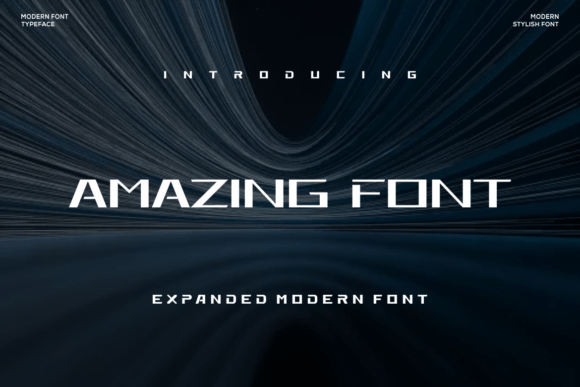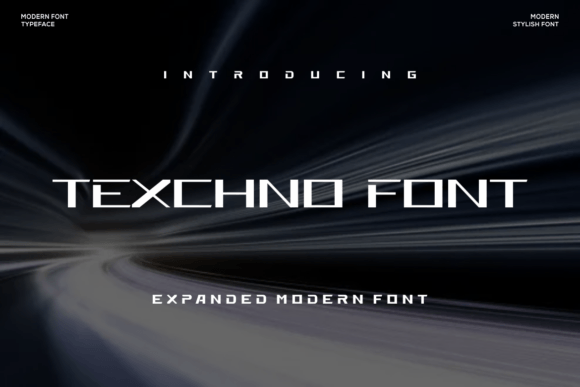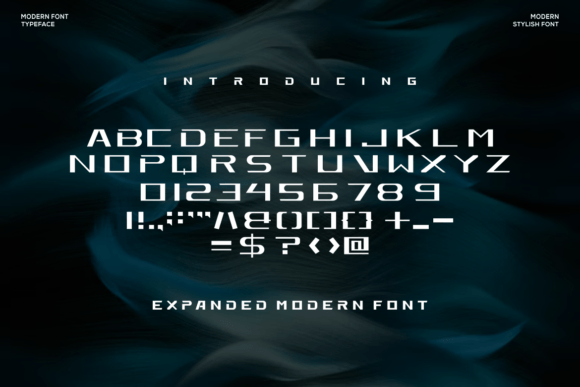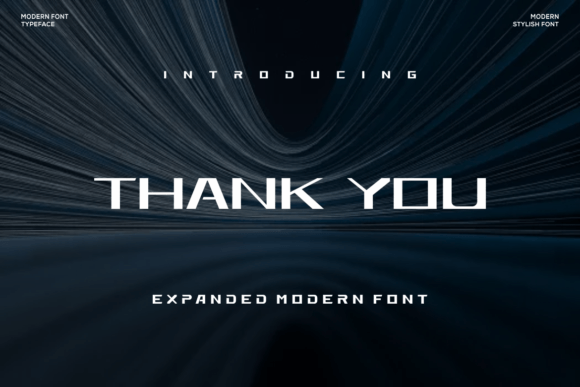
Introducing Banksit Font: The Modern Display Font for Creative Projects
In the world of design, fonts play a crucial role in conveying the message and tone of a brand. A well-chosen font can elevate a design project from ordinary to extraordinary. Today, we’re excited to introduce Banksit Font, a modern display font that’s perfect for designers, crafters, and brands looking for a bold and authentic typographic solution.
What is Banksit Font?
Banksit Font is a bold and authentic display font designed to make a statement. Its modern aesthetic and clean lines make it perfect for a variety of design projects, from logos and t-shirt printing to creative products and more. This font is designed to be versatile and can be used in a range of contexts, from digital media to print materials.
Key Features of Banksit Font
- Bold and Authentic: Banksit Font has a strong and confident presence, making it perfect for headlines, titles, and short texts.
- Modern Aesthetic: The font’s clean lines and modern design make it perfect for contemporary design projects.
- Versatile: Banksit Font can be used in a variety of contexts, from digital media to print materials, and is suitable for a range of design projects.
- Easily Readable: Despite its bold nature, Banksit Font is easily readable, even at smaller sizes.
Use Cases for Banksit Font
Banksit Font is perfect for a variety of design projects, including:
- Logo Design: The font’s bold and authentic nature makes it perfect for logos that need to make a statement.
- T-Shirt Printing: Banksit Font is ideal for t-shirt printing, as it’s easily readable and has a strong presence.
- Creative Products: The font’s modern aesthetic makes it perfect for creative products, such as posters, flyers, and brochures.
- Branding Projects: Banksit Font can be used for a range of branding projects, from business cards to letterheads.
Why Choose Banksit Font?
There are many fonts available on the market, but Banksit Font stands out from the rest. Here are just a few reasons why:
- Unique Design: Banksit Font has a unique design that’s both modern and authentic.
- High-Quality: The font is designed to be high-quality, with clean lines and a strong presence.
| Font Name | Banksit Font |
| Author | agusbolang1616 |
In conclusion, Banksit Font is a modern display font that’s perfect for designers, crafters, and brands looking for a bold and authentic typographic solution. Its versatility, readability, and unique design make it perfect for a variety of design projects. Whether you’re working on a logo, t-shirt printing, or creative products, Banksit Font is the perfect choice. So why wait? Download Banksit Font today and take your design projects to the next level!